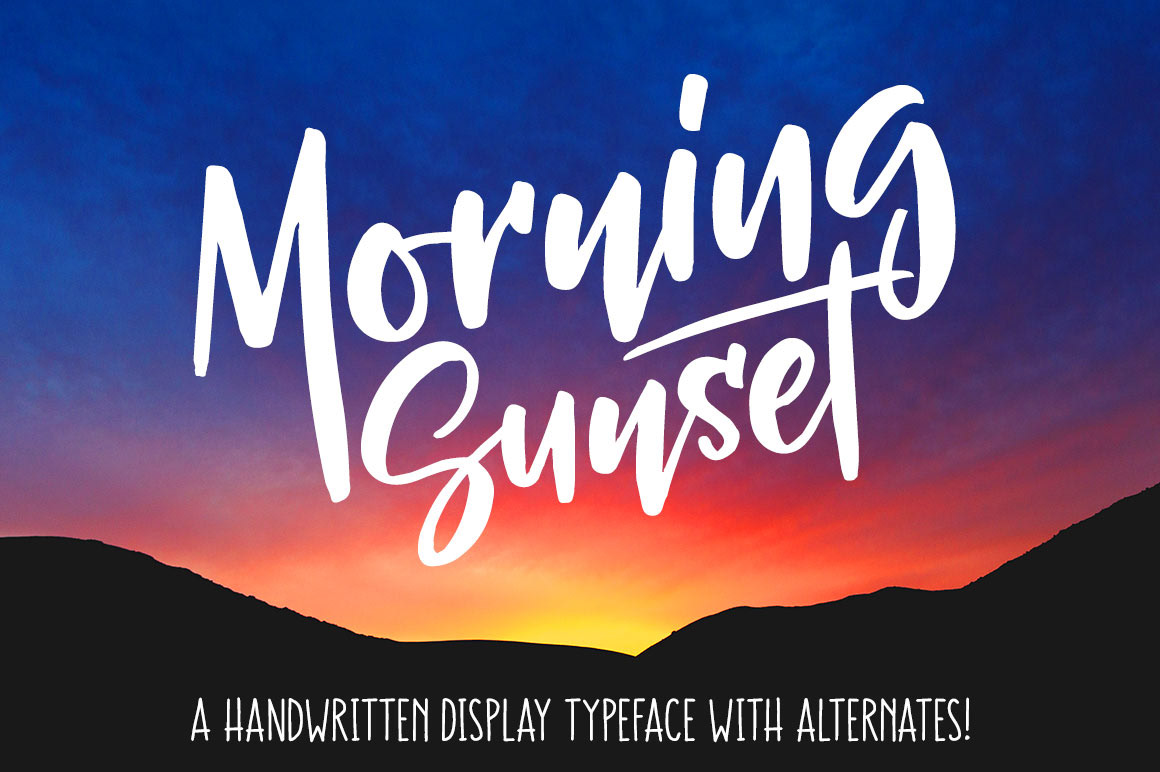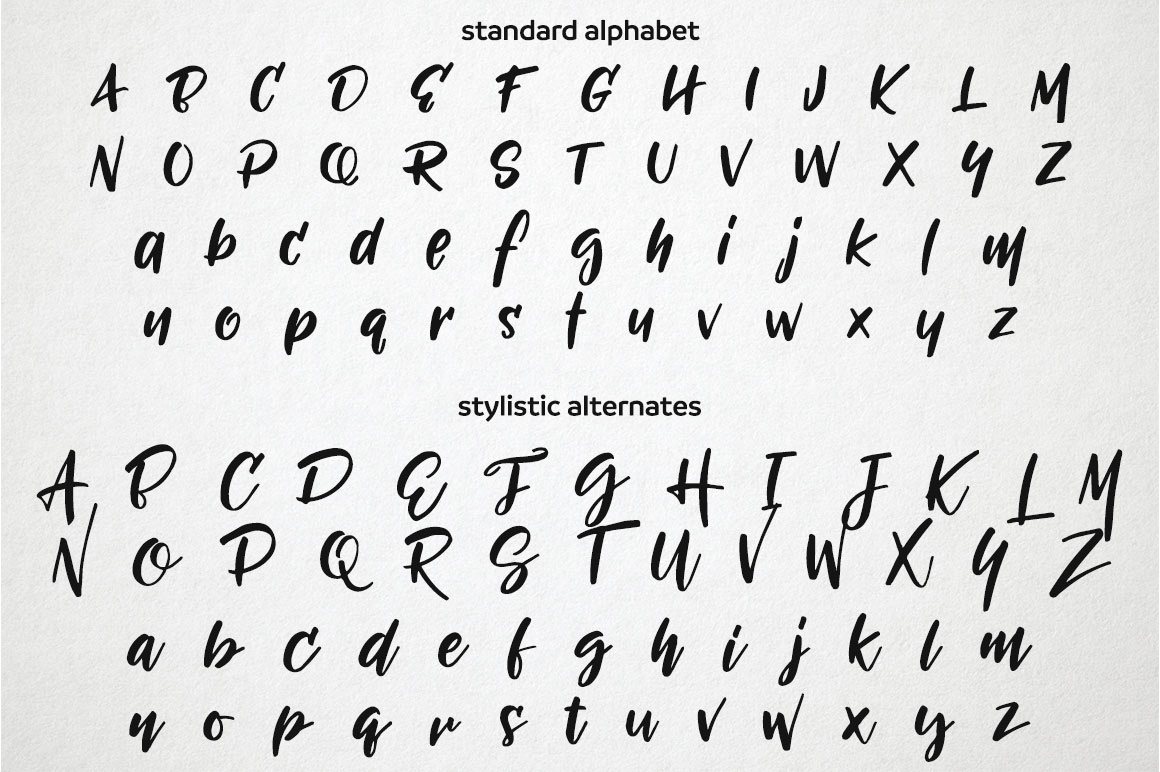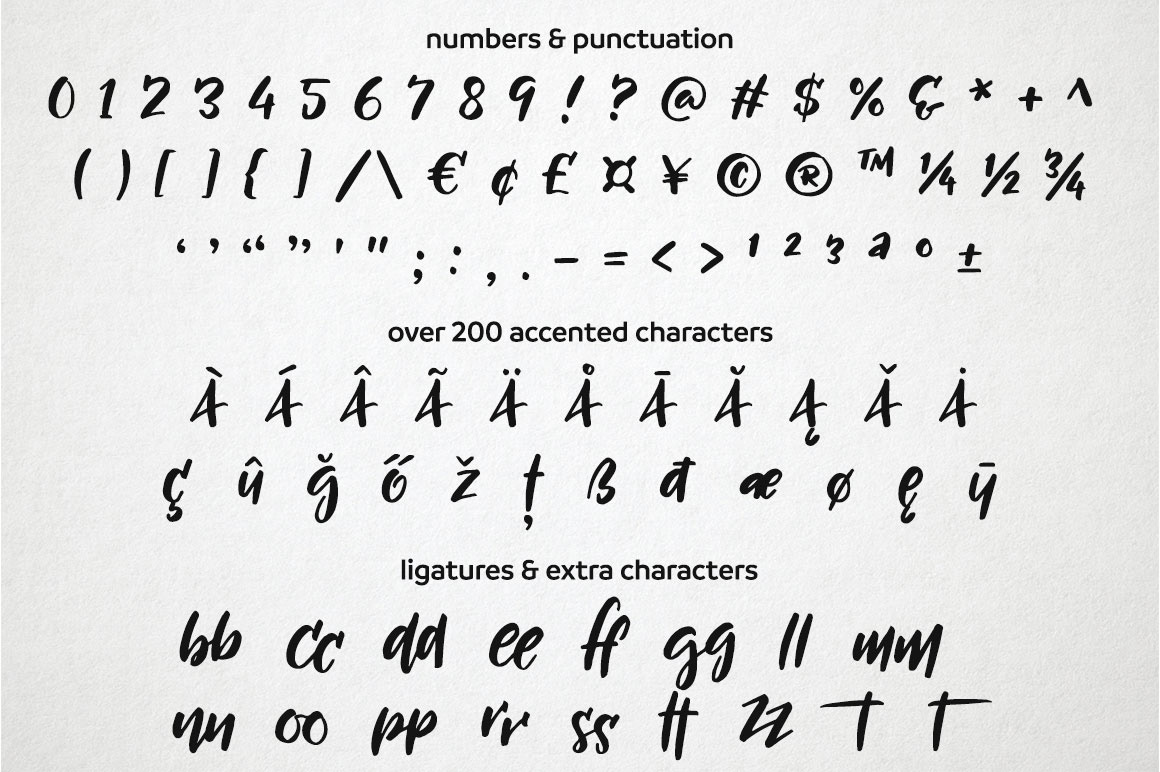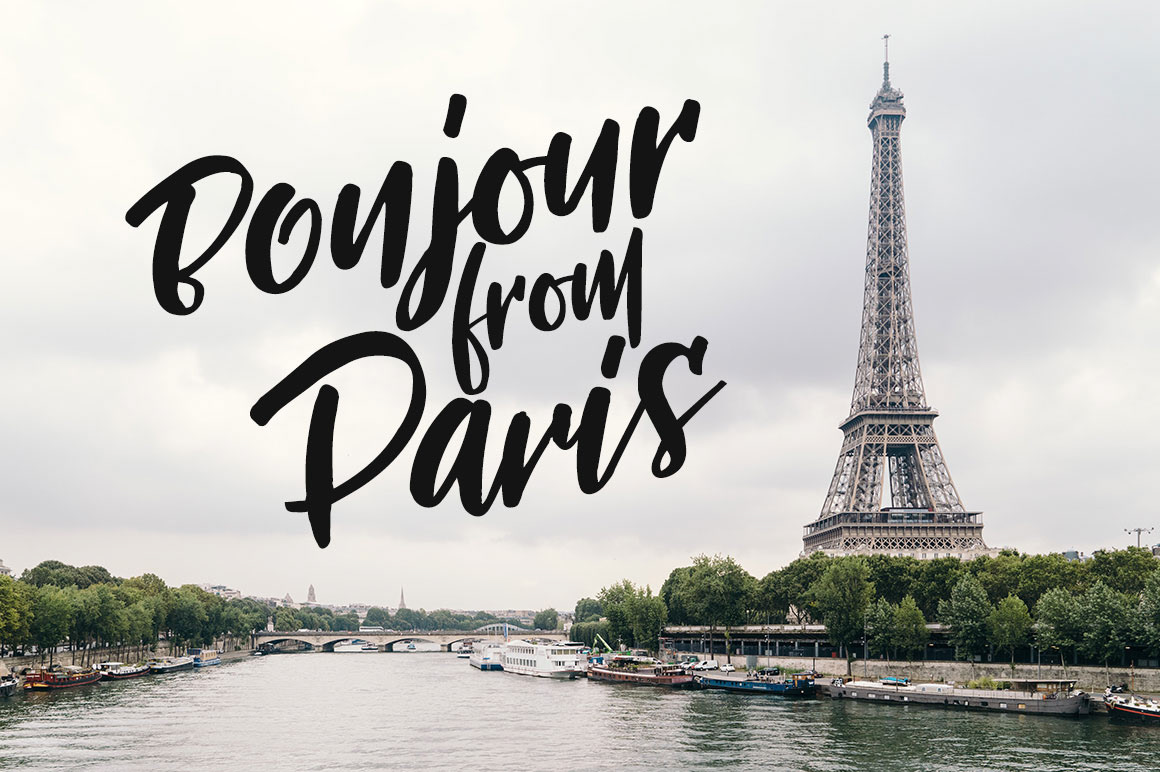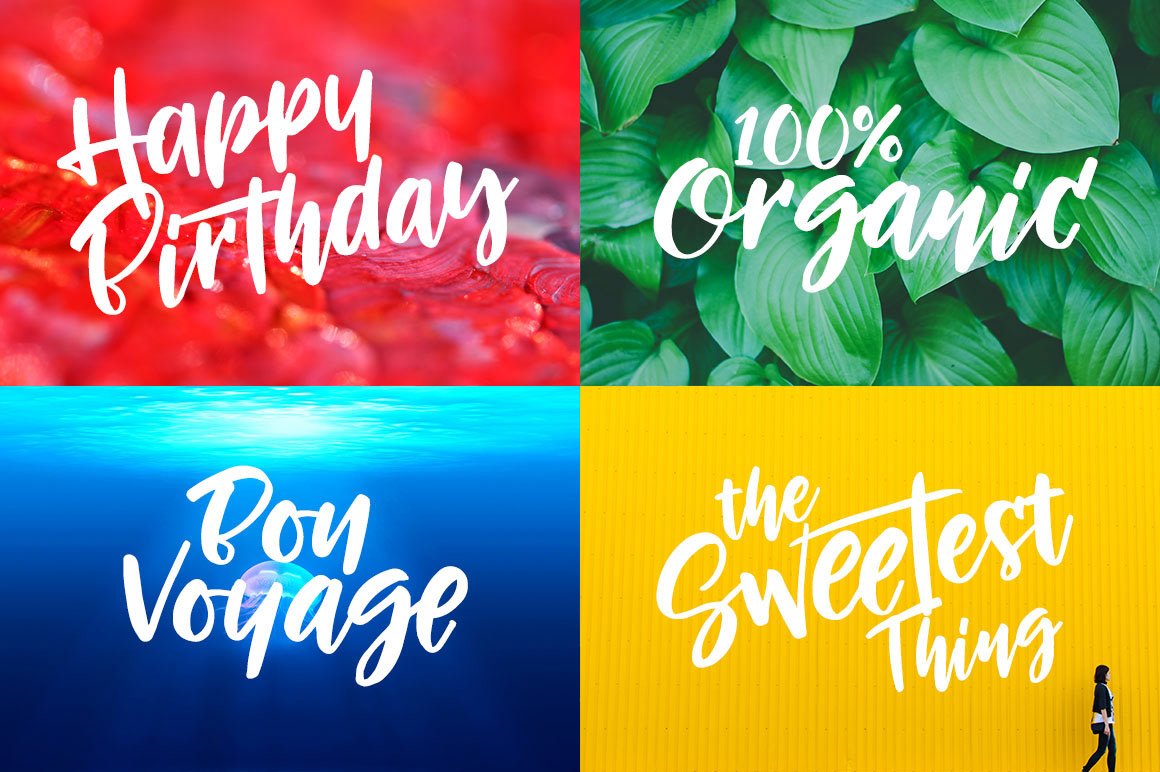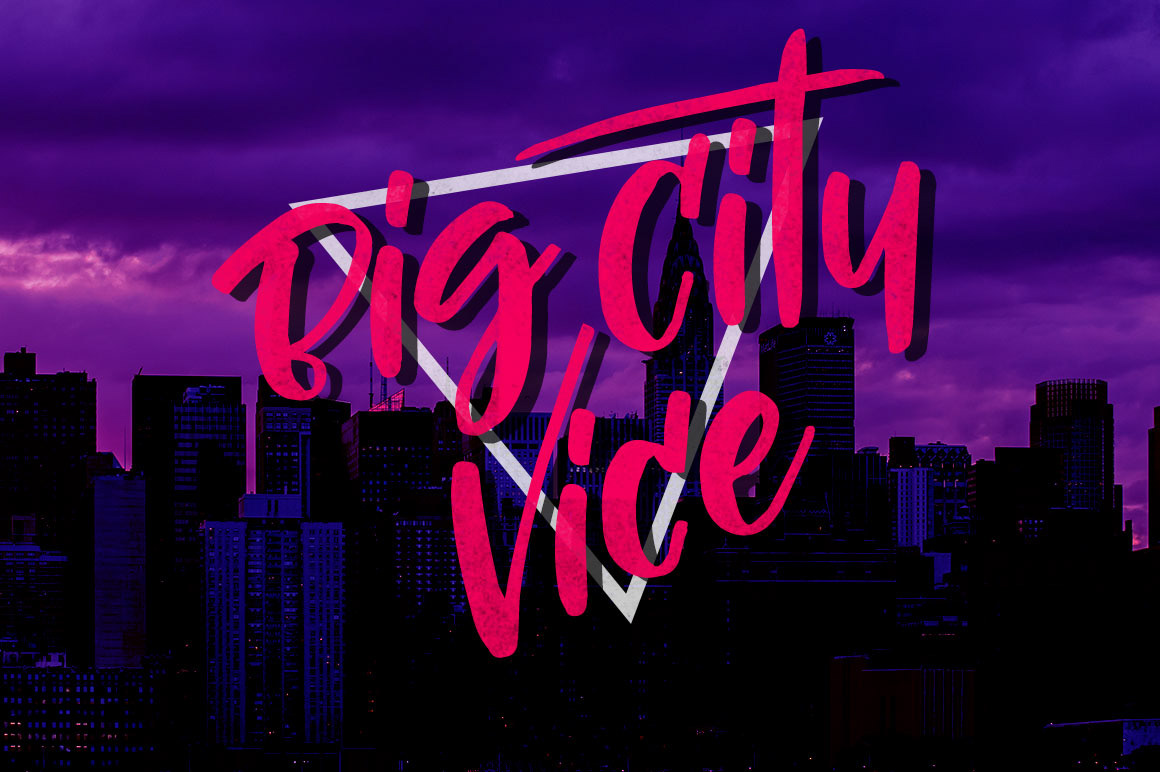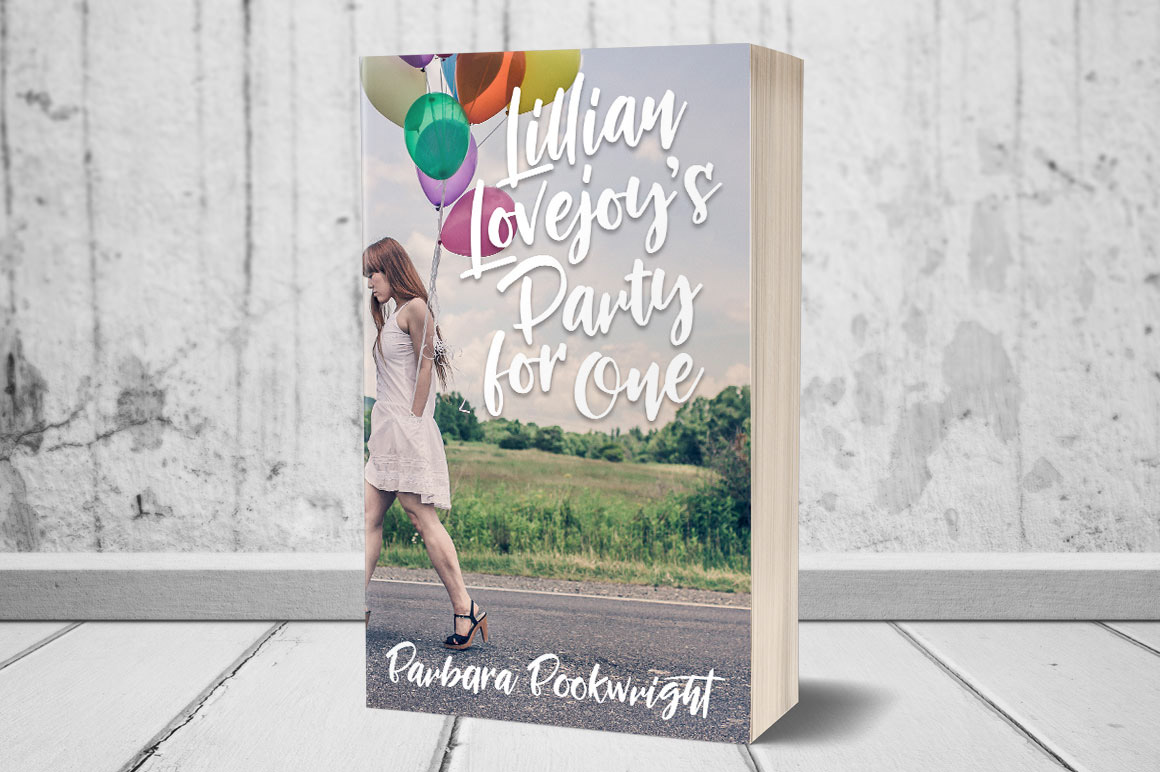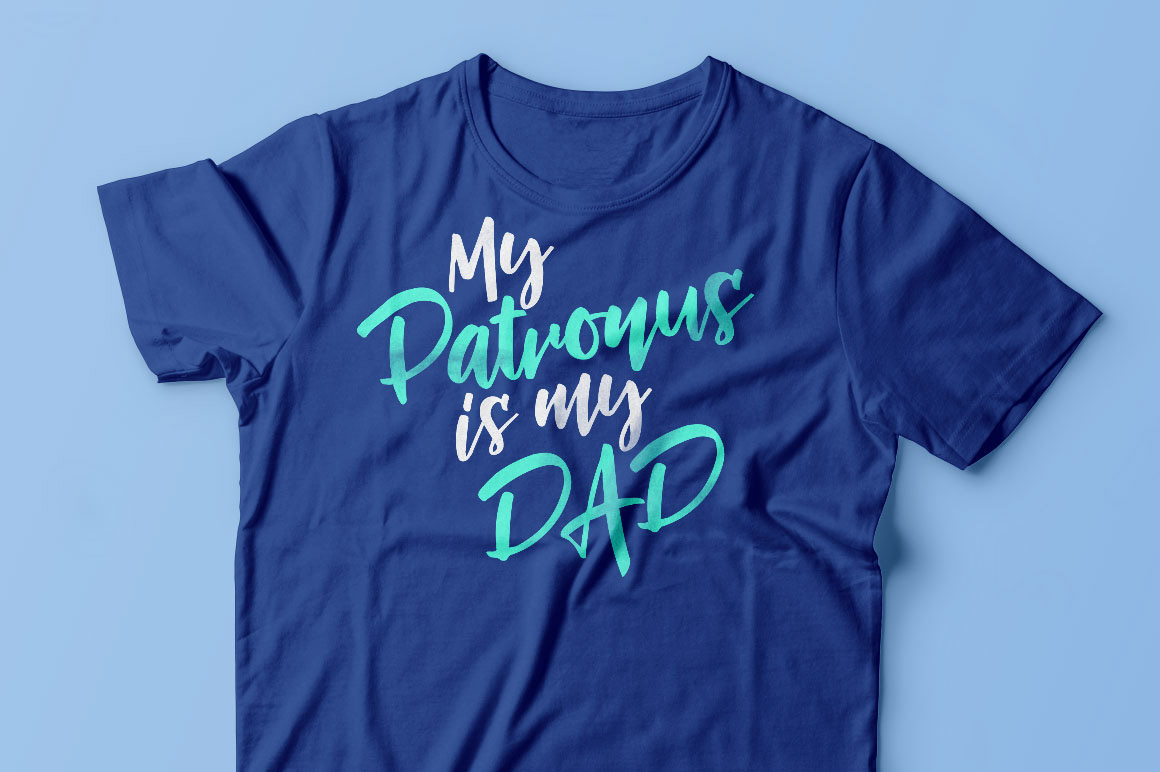
I name my fonts based on how they "feel" to me. This one gave me a very beachy, oceanside feeling, and kind of both a sunrise and sunset vibe. Thus the weird, scientifically impossible, yet descriptive name: "Morning Sunset"! It's a handwritten display typeface, with some of the quirks and bumps that come with handwriting, yet smooth enough for crafters and vinyl cutters.
This typeface includes a full set of stylistic alternates: the uppercase A-Z are larger and more dramatic than the standard set, while the alternates for lowercase a-z all have connecting tails, allowing you to mix and match the standard and alternate lowercase letters for a handwritten look.
Morning Sunset also contains a full set of punctuation, 15 double-letter ligatures, and over 200 accented characters for foreign language support (including English, French, Spanish, German, Polish, Romanian, Portuguese, Swedish, Finnish, Norwegian, Danish, Esperanto, Czech, Dutch, Welsh, Filipino, Turkish, and more!)
Morning Sunset includes:
- Standard uppercase and lowercase alphabets
- Full stylistic alternate uppercase and lowercase alphabets
- Standard numbers 0-9 and punctuation
- Over 200 accented characters for foreign language support
- 15 double-letter ligatures